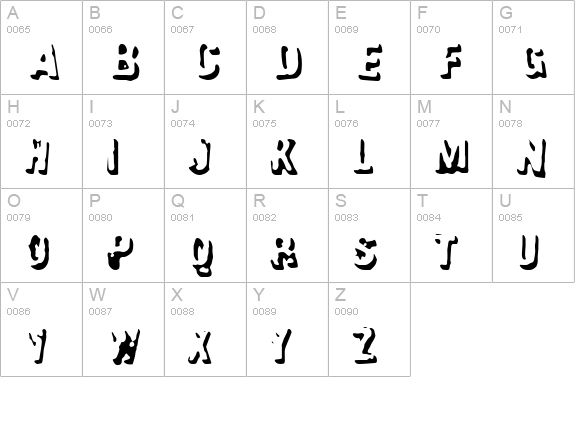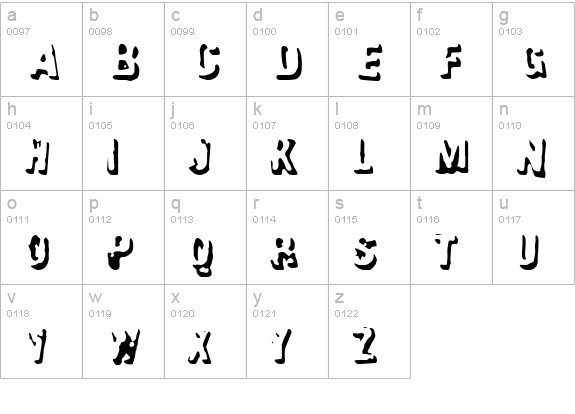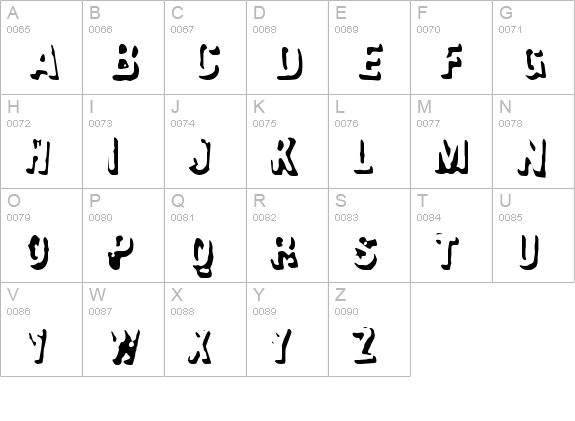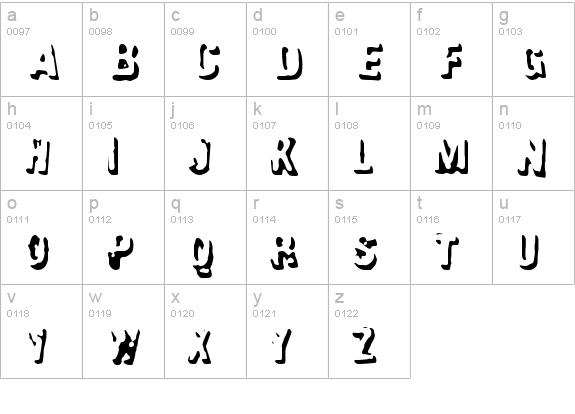
Failure Font Details
The Failure font is a unique and edgy typeface that conveys a sense of unpredictability and raw authenticity. Its bold and irregular letterforms make a bold statement, perfect for projects that require a touch of rebelliousness or creative flair. The Failure font is freely available to download at FontsMarket.com, making it easily accessible for designers looking to add a touch of unconventional style to their work. Embrace the unexpected with the Failure font and let your creativity shine through in every design project.